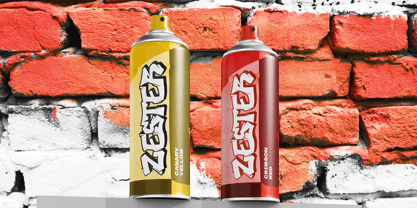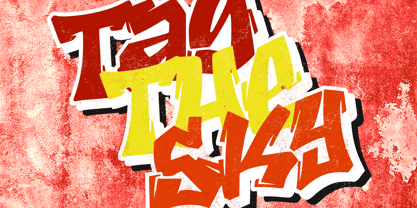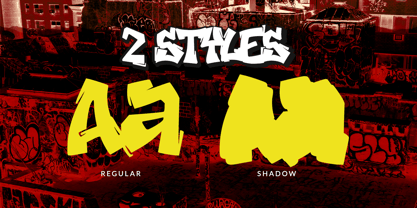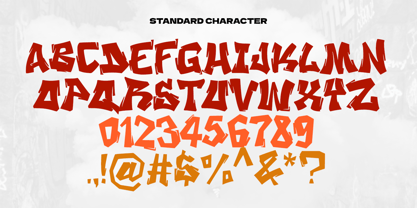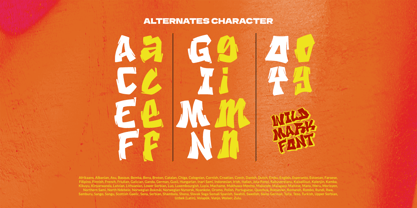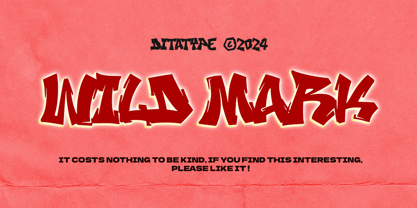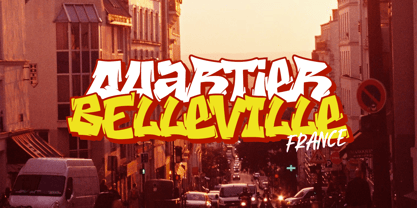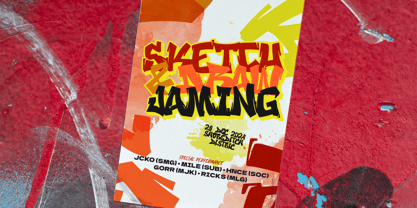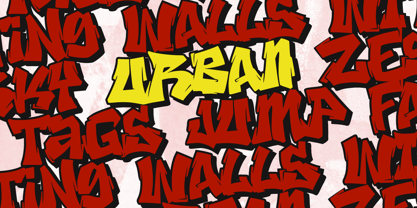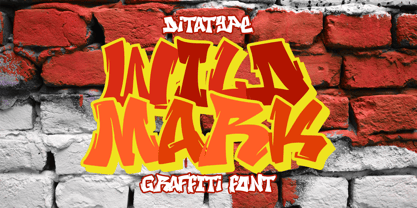
Wild Mark
by Ditatype
The Wild Mark Font Family was designed by Donis Miftahudin and published by Ditatype. Wild Mark contains 2 styles and family package options. More about this family
Wild Mark is an expressive graffiti font that radiates untamed energy and creativity. Designed in all uppercase, its irregular letter shapes add a raw and dynamic edge to your designs. The sharp corners of each letter emphasize its bold and rebellious character, while the shadow style enhances depth and visual impact. Perfect for urban art-inspired projects, edgy branding, or standout posters, Wild Mark brings the wild spirit of graffiti to life, making every design an attention-grabbing masterpiece. In addition, enjoy the features here.
Wild Mark fits in logos, posters, branding materials, print media, and many more designs. Find out more ways to use this font by taking a look at the font preview.